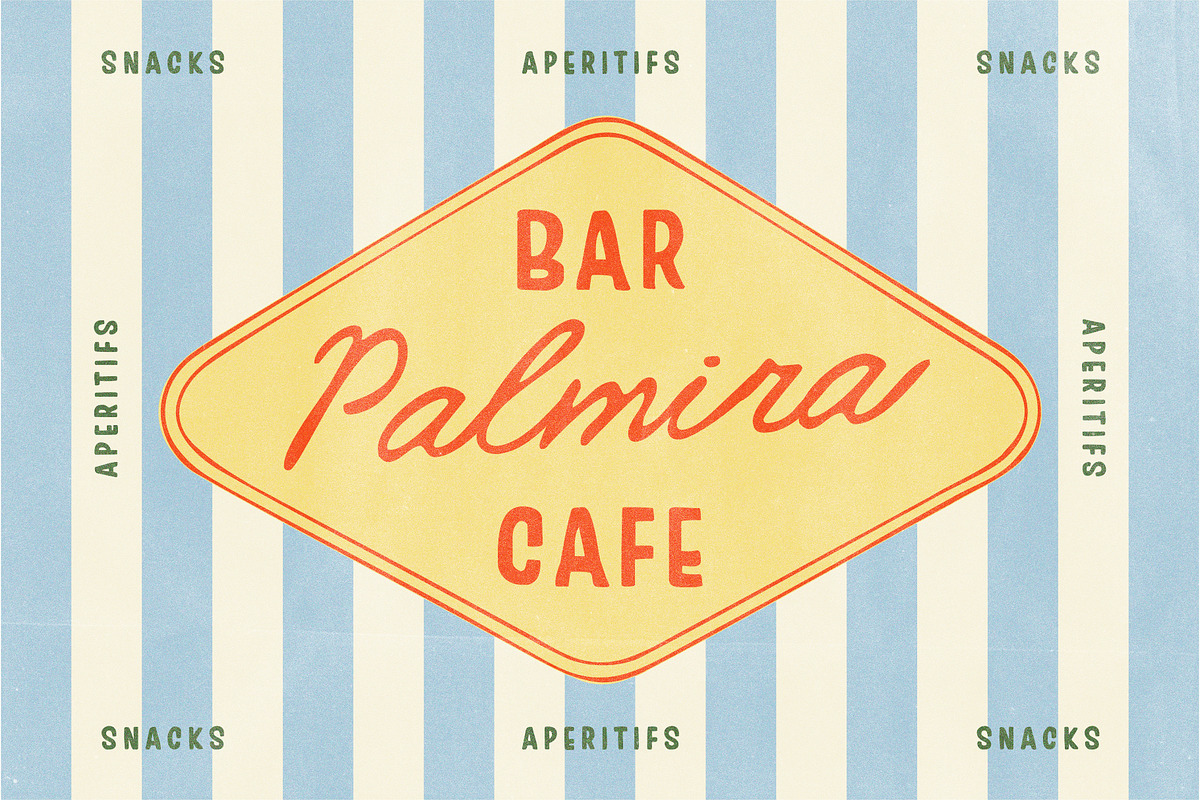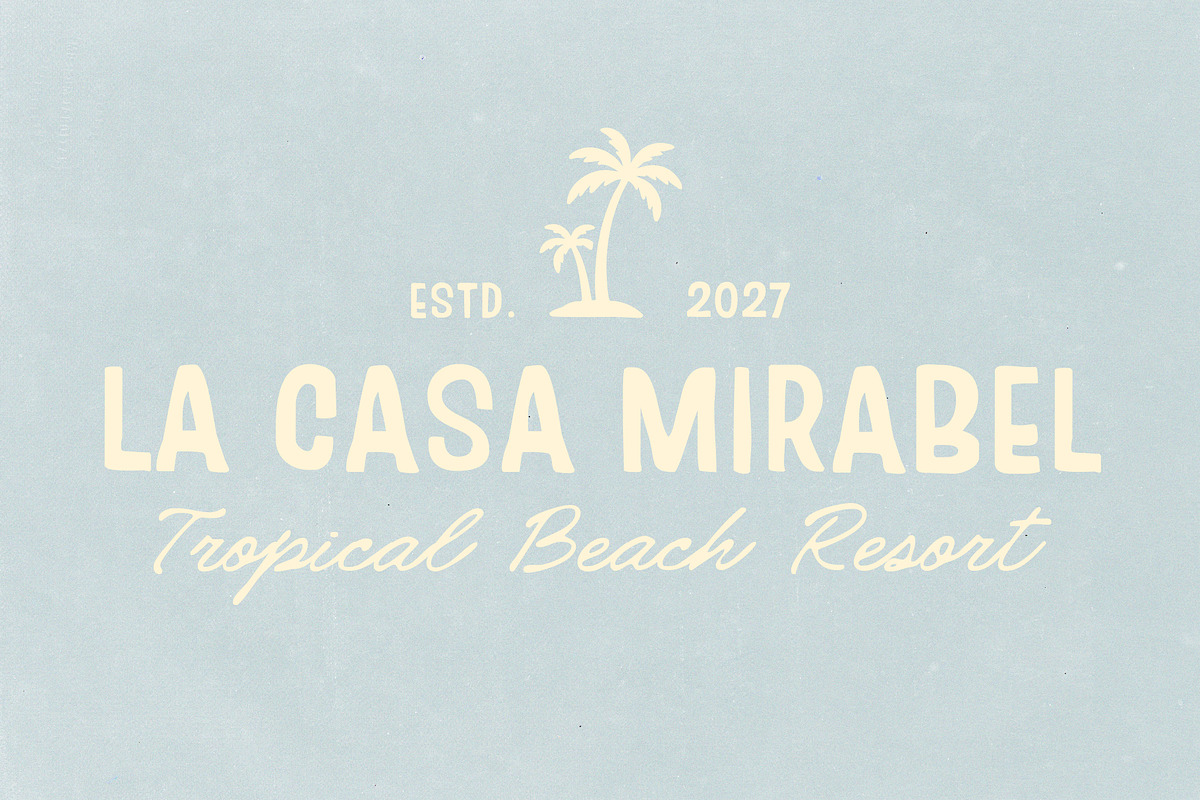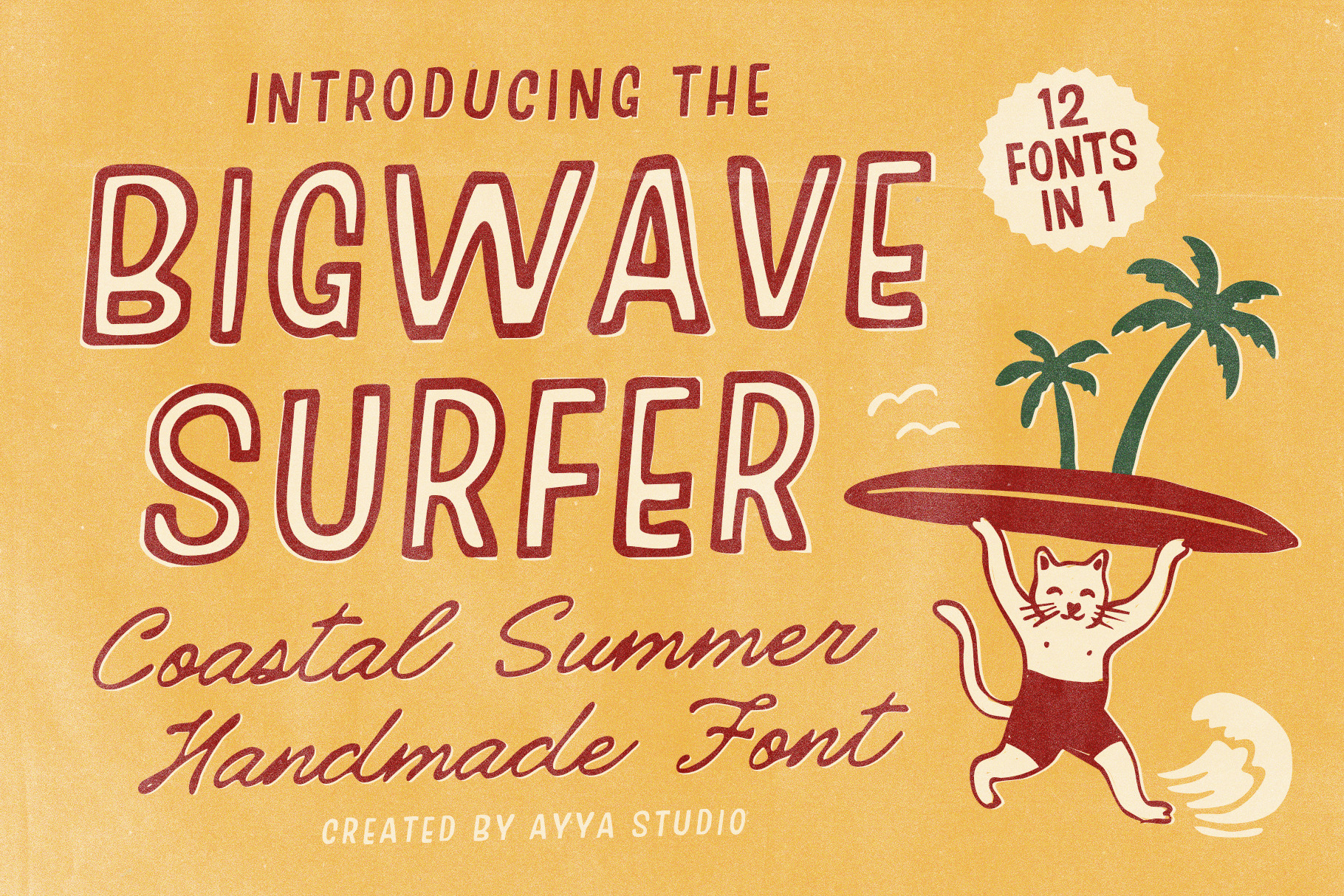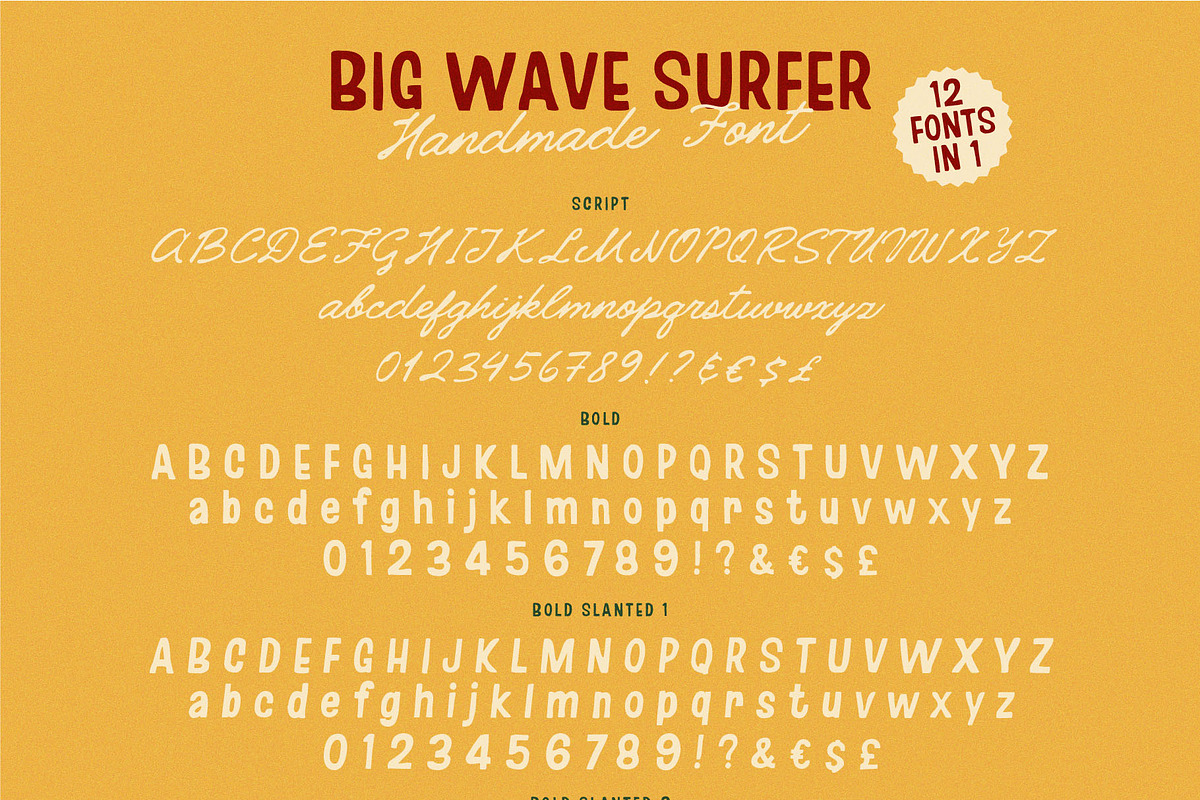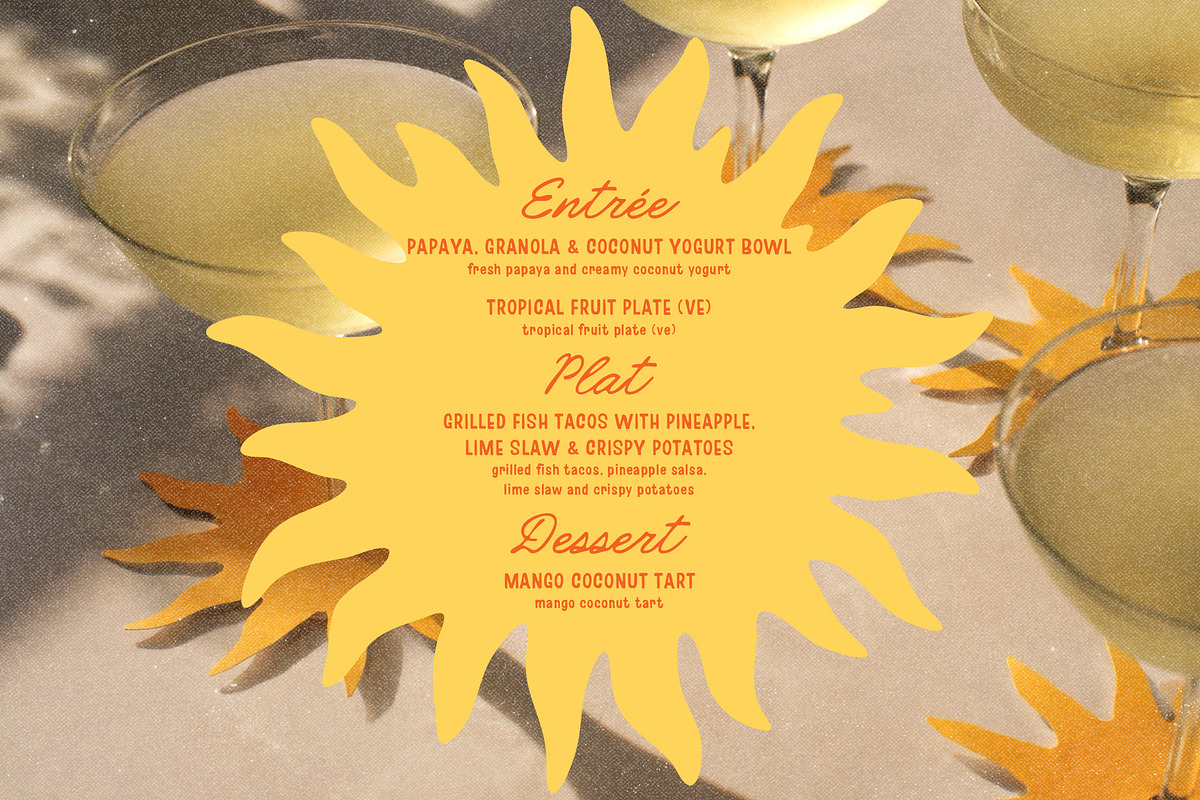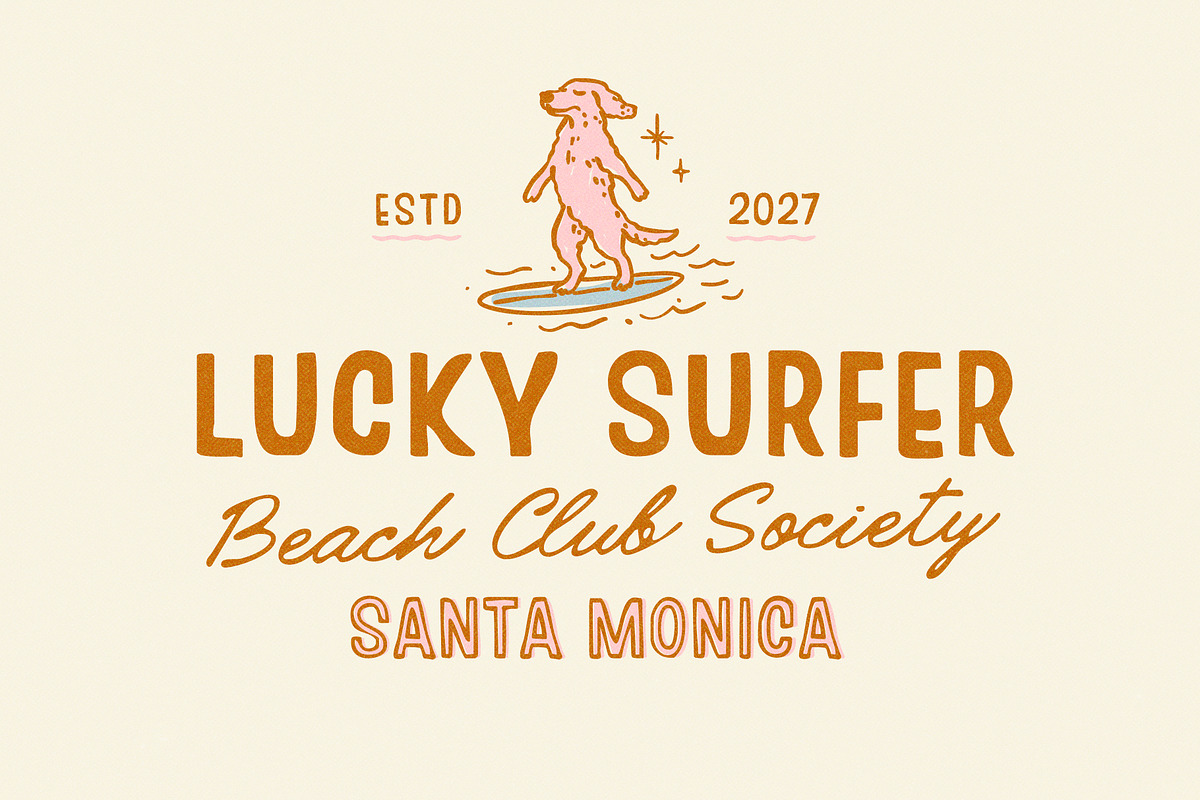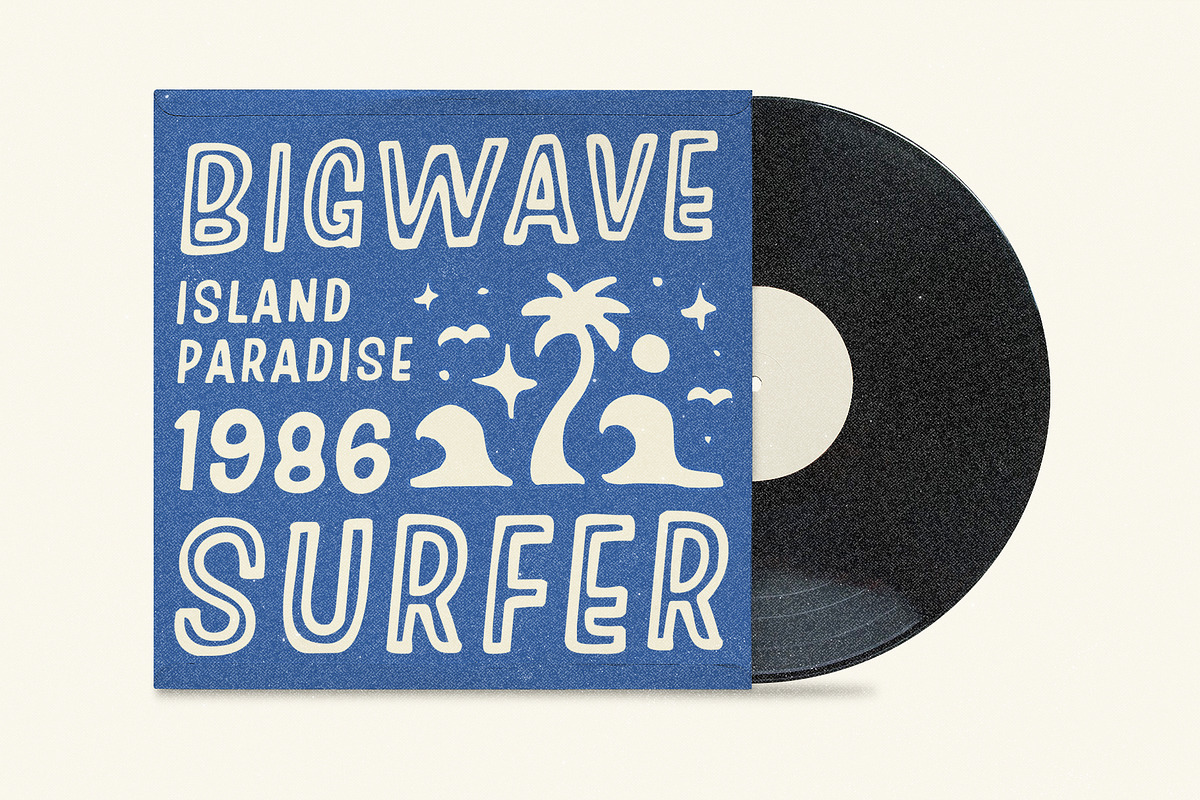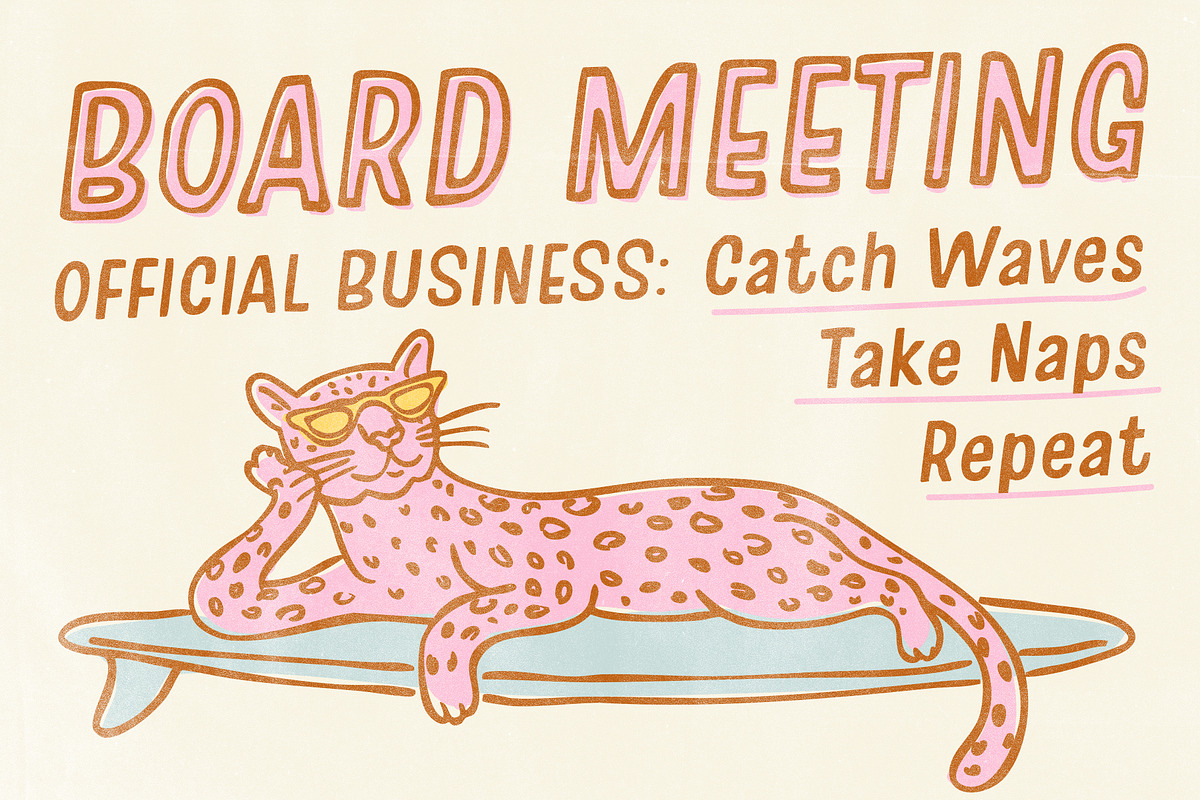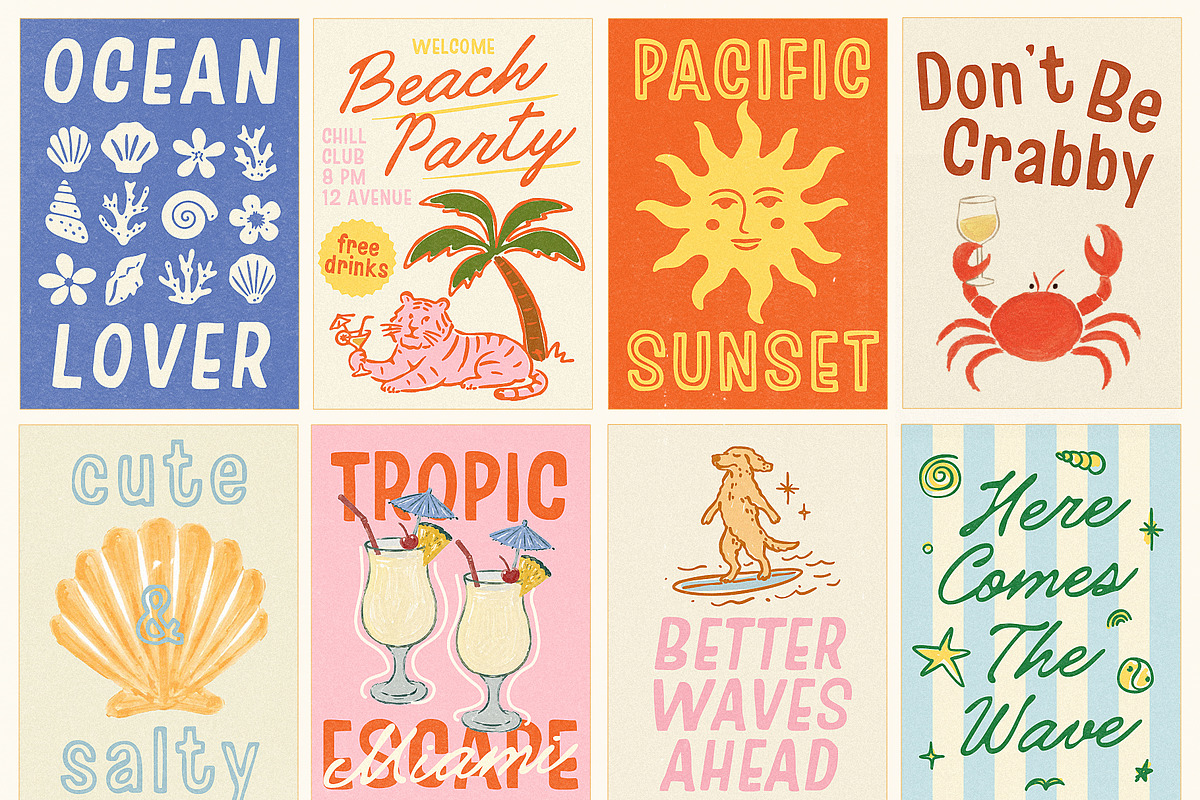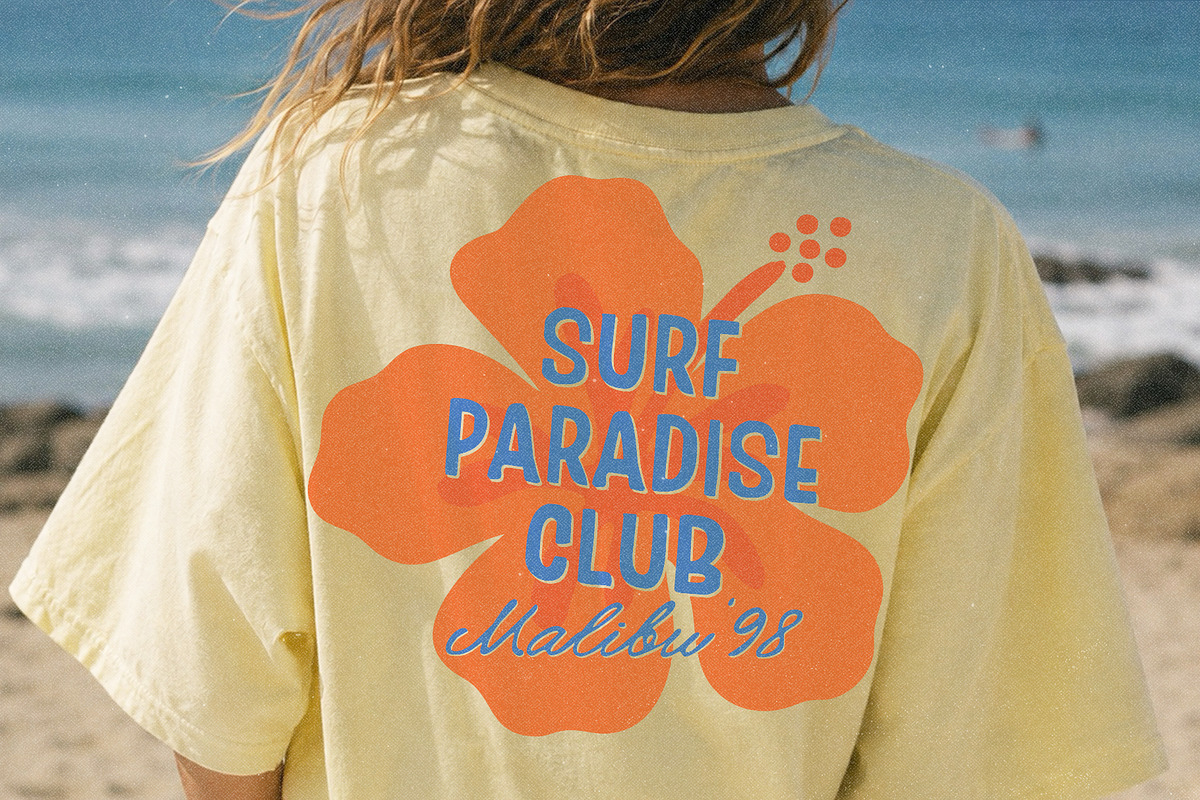
Bigwave Surfer Coastal Island Font
Bigwave Surfer is a versatile font family with a relaxed coastal feel and a hand-painted look. Inspired by vintage surf signs, beach towns, and tropical vacations.
It feels casual, playful, and handcrafted, making it a great fit for surf brands, tropical cafés, beach clubs, vacation designs, tiki-inspired graphics, and retro coastal aesthetics. Bold enough for headlines, but full of the little imperfections that make hand-painted lettering so fun.
Use it for logos, posters, packaging, apparel, menus, branding, social media, or anything that could use a little more personality. It's especially at home in coastal, retro, vacation, surf, tiki, and summer-inspired designs.